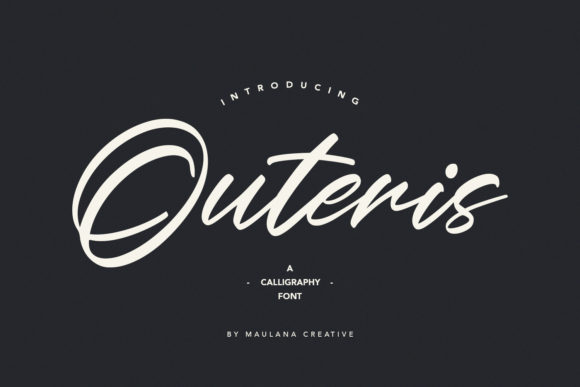
Immerse yourself in the captivating world of Outeris, an exquisite script font family that will ignite your creative spirit. Each meticulously crafted character exudes the charm and authenticity of hand lettering, bringing a touch of artistry to your digital masterpieces.
Whether you're a seasoned designer or just starting your creative journey, Outeris is your perfect companion. Its elegant swirls and delicate strokes evoke a sense of intimacy and warmth, making it an ideal choice for personal projects like heartfelt letters, invitations, and stationery.
But Outeris's versatility doesn't stop there. Its bold presence commands attention in logos, website headers, and social media graphics, adding a touch of sophistication to your brand identity. From magazine covers to book jackets, Outeris's timeless style will elevate your publications to new heights.
Unleash your imagination with Outeris – a font that will transform your designs into captivating works of art. Your creations will radiate with the genuine charm of handwritten messages, leaving a lasting impression on your audience. Embrace the power of expression with Outeris – let your designs speak volumes!